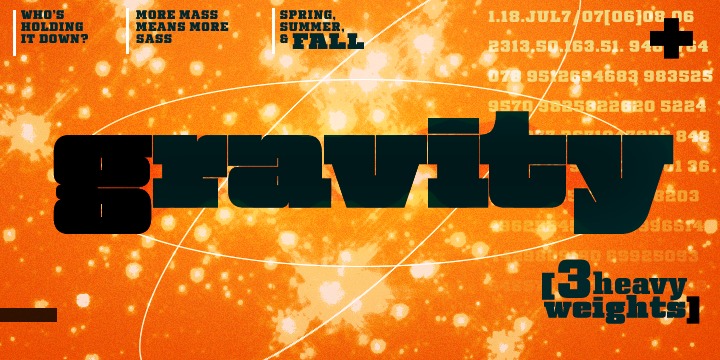
The Gravity family is a unique series of heavy square slab serifs intended mainly for display usage.
Gravity Normal exhibits impact with legibility.
Gravity Nova is fine-tuned to showcase brawn and beauty.
Gravity Supernova, the most audacious of the family, commands attention with its extremely dense, mechanical design. More…
Each weight includes diacritics for Western and Central European languages and is tightly spaced for maximum impact.
Gravity Normal
Gravity Nova
Gravity Supernova